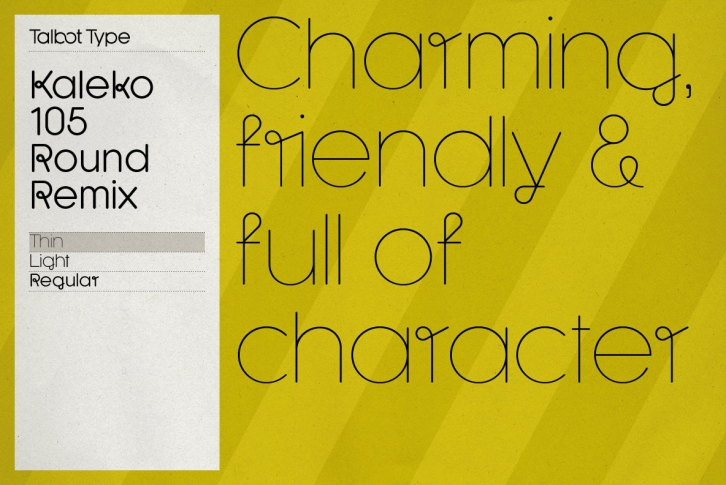
A remixed variation, available in three weights, of the popular Talbot Type geometric sans Kaleko 105 Round. The addition of occasional flourishes at the intersections of strokes, in both upper and lower case, adds character charm, making the font a perfect titling font to accompany Kaleko 105 and/or Kaleko 105 Round, or a display font in its own right. Kaleko 105 Round Remix features a comprehensive glyph set including accented characters for central European languages.